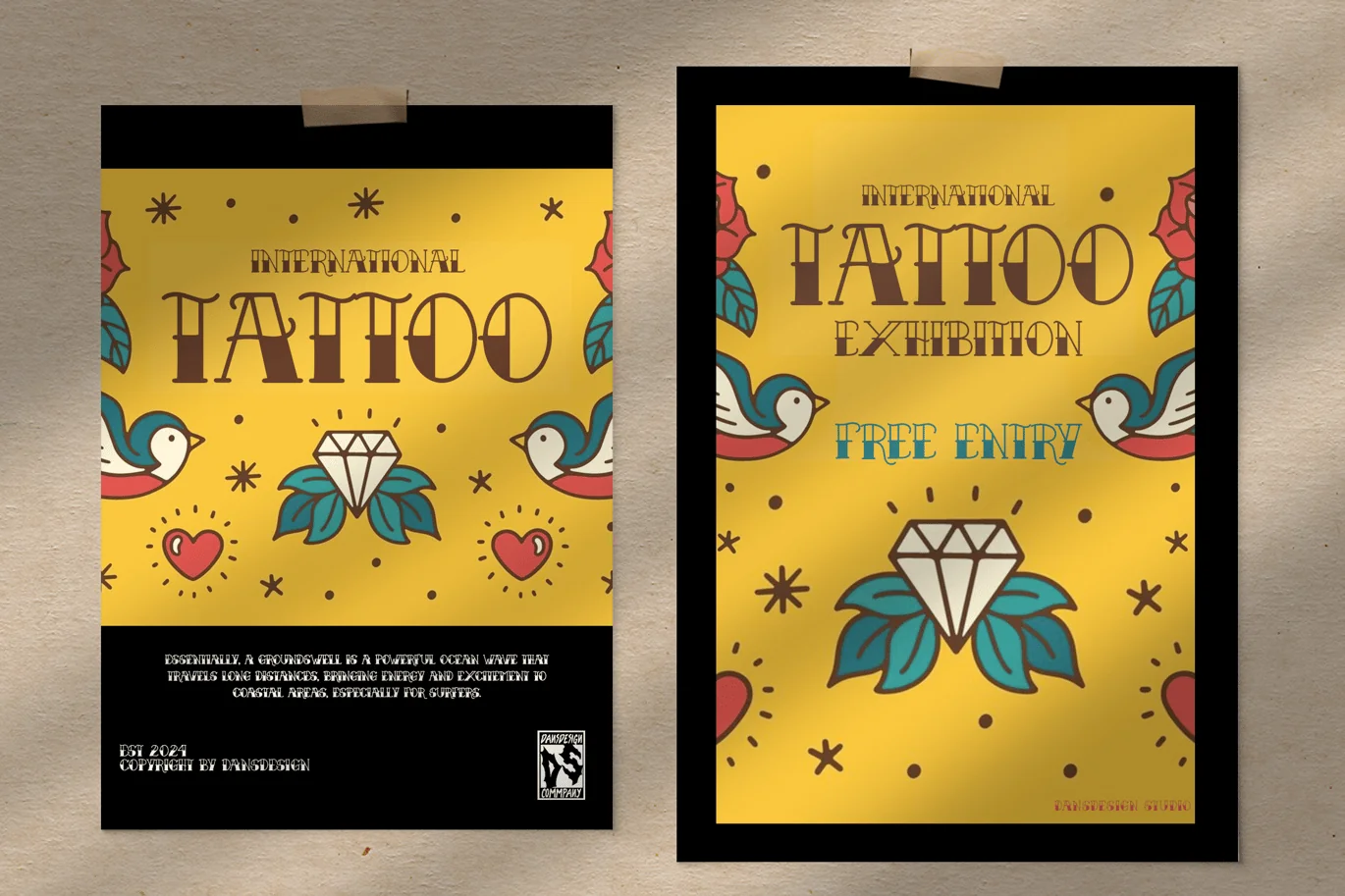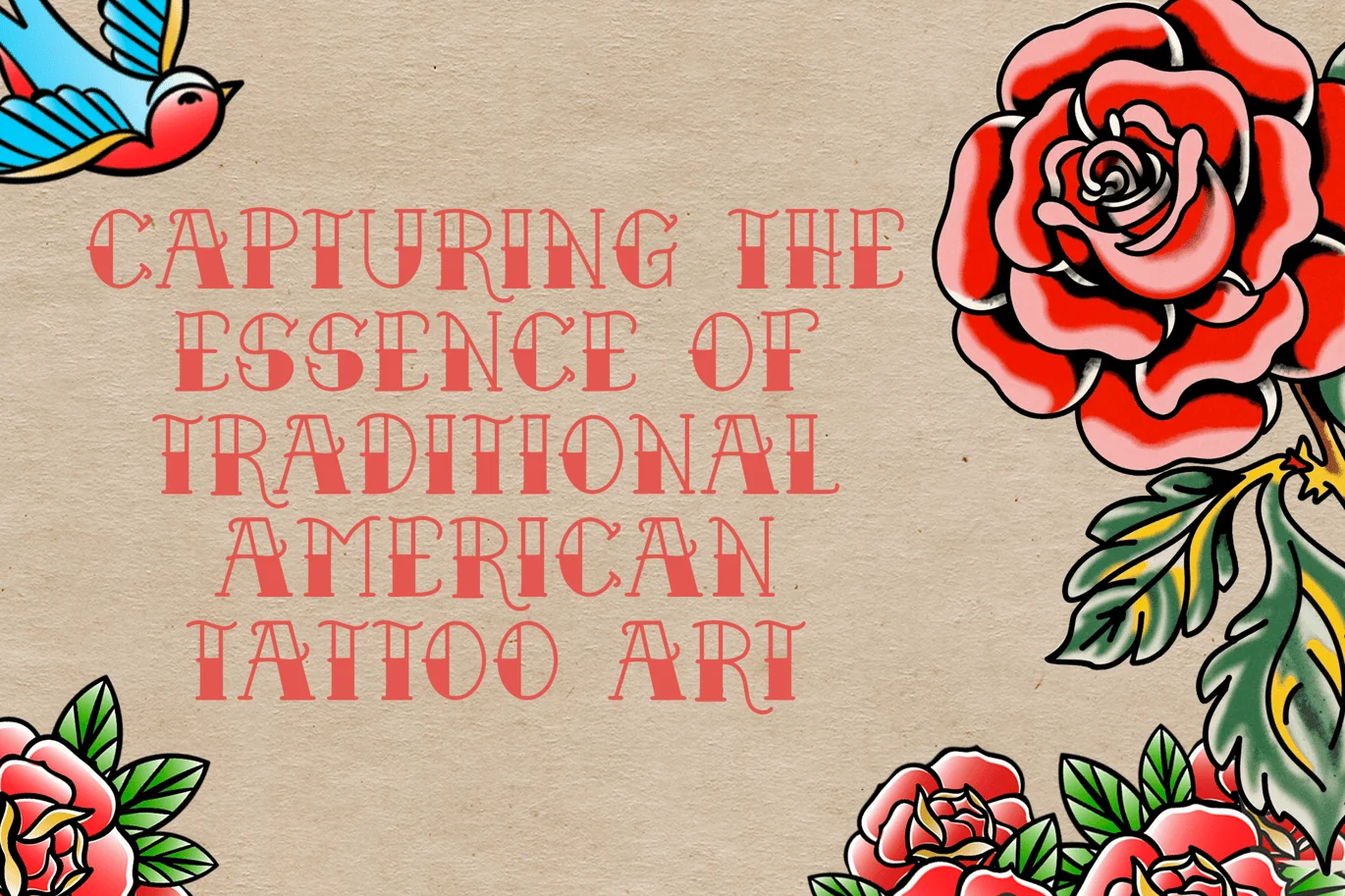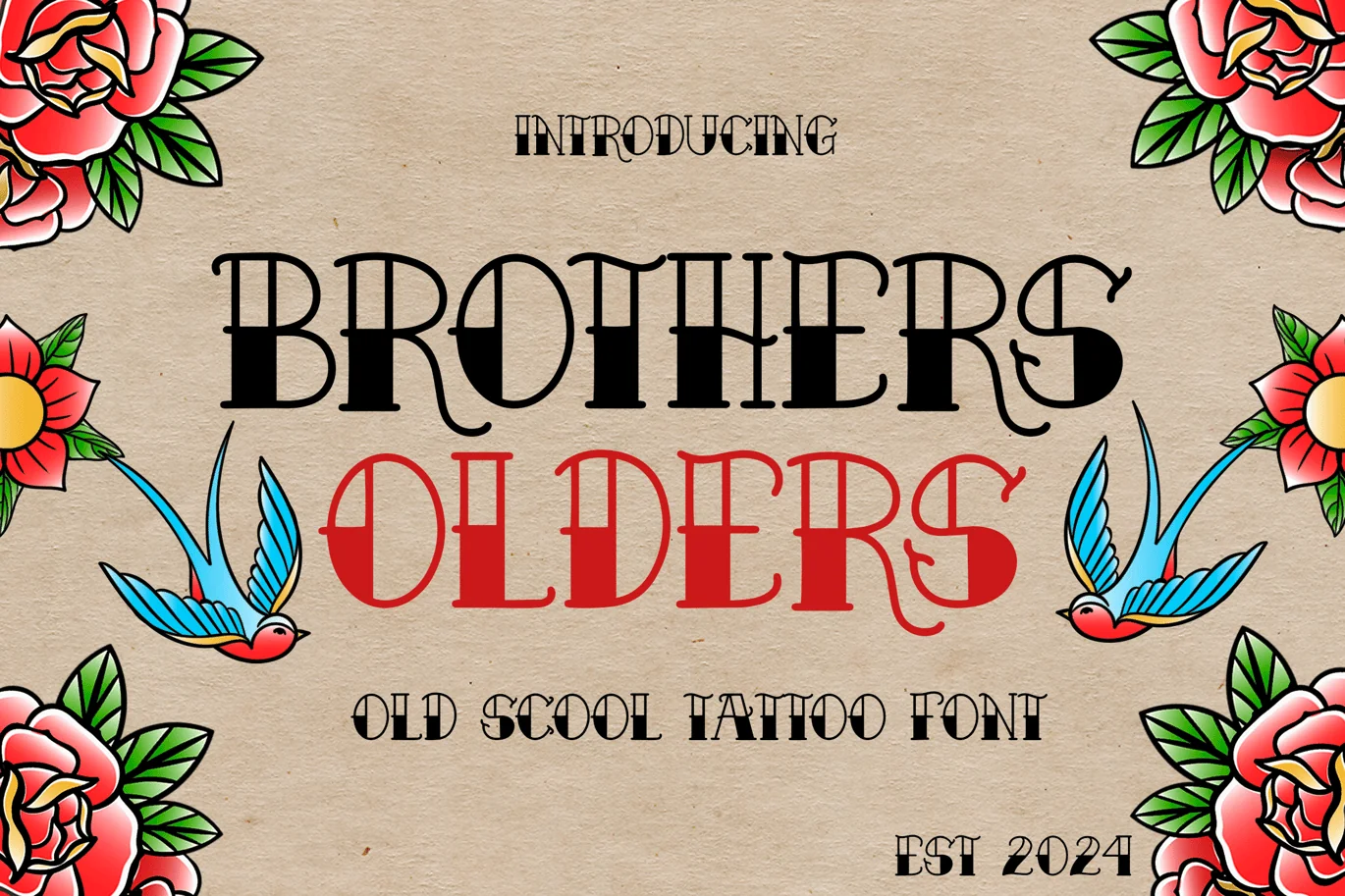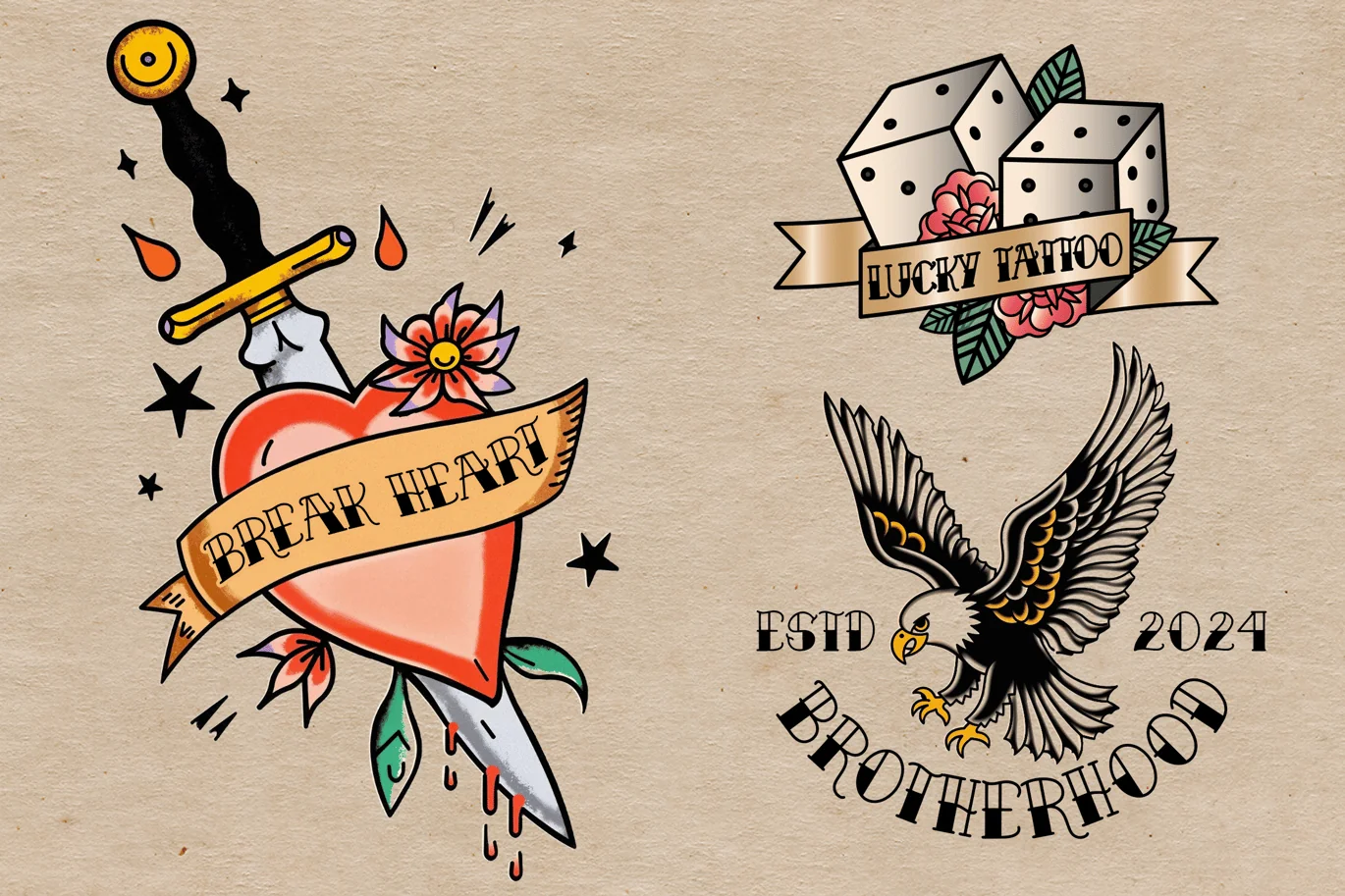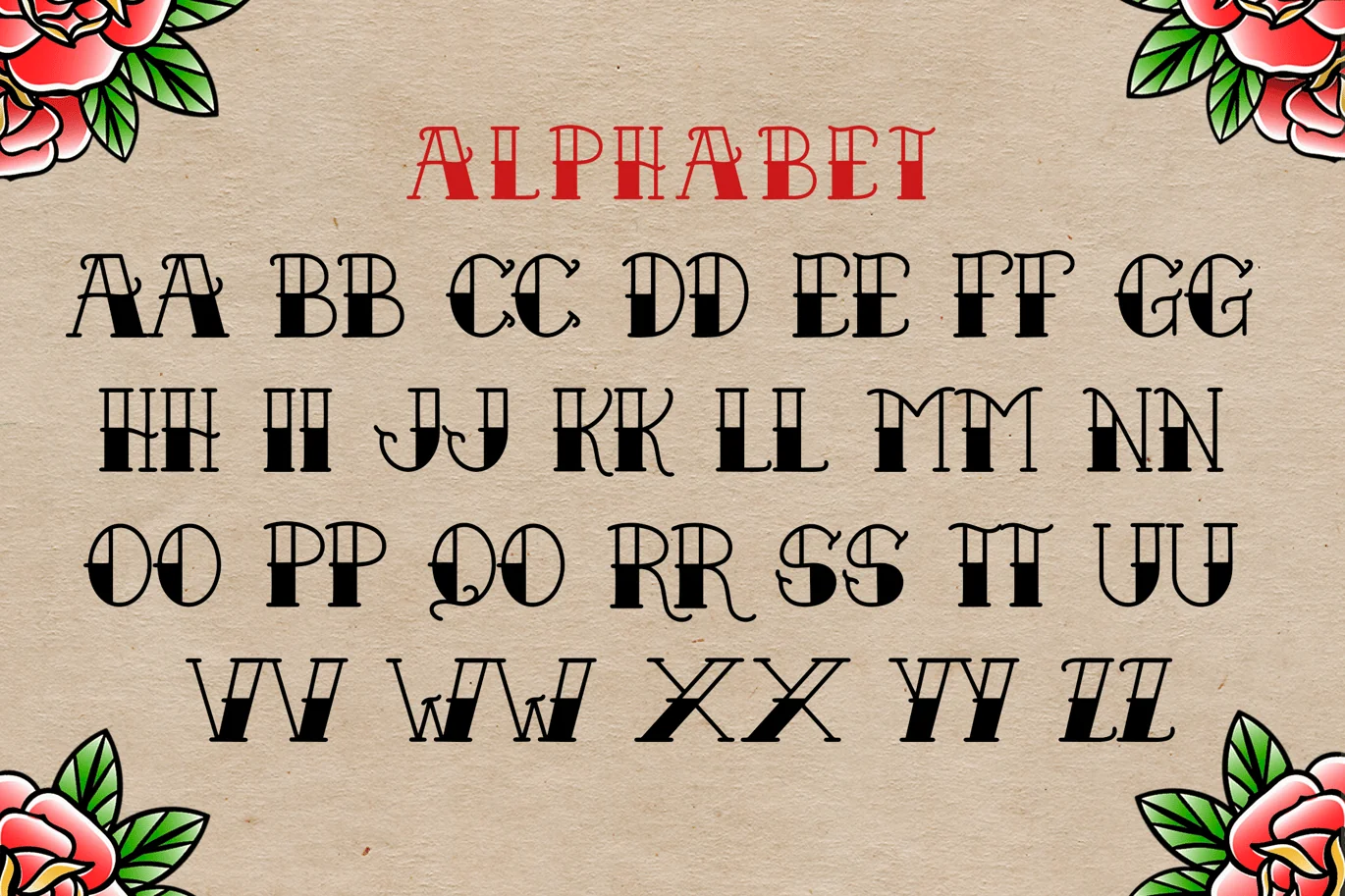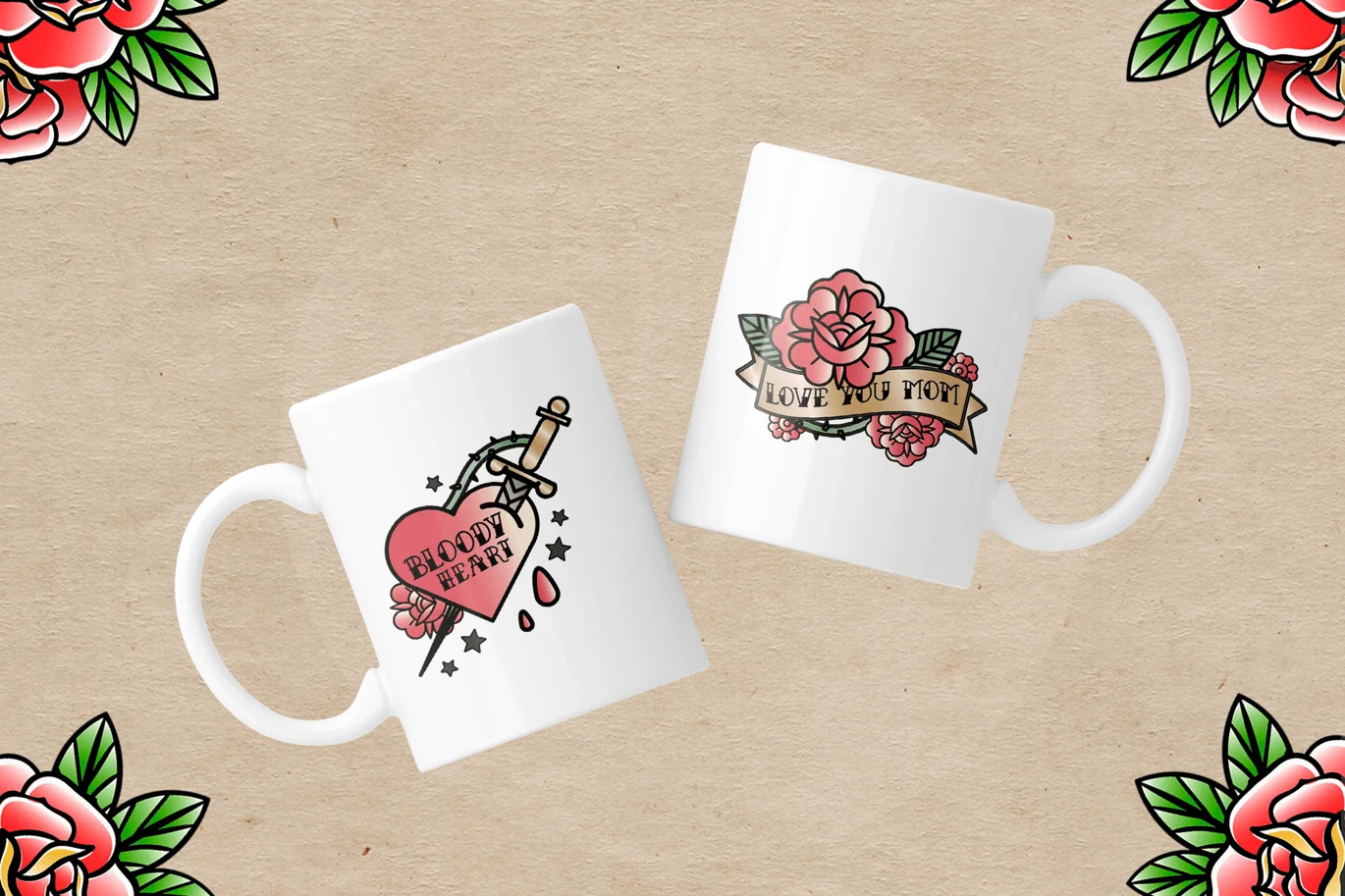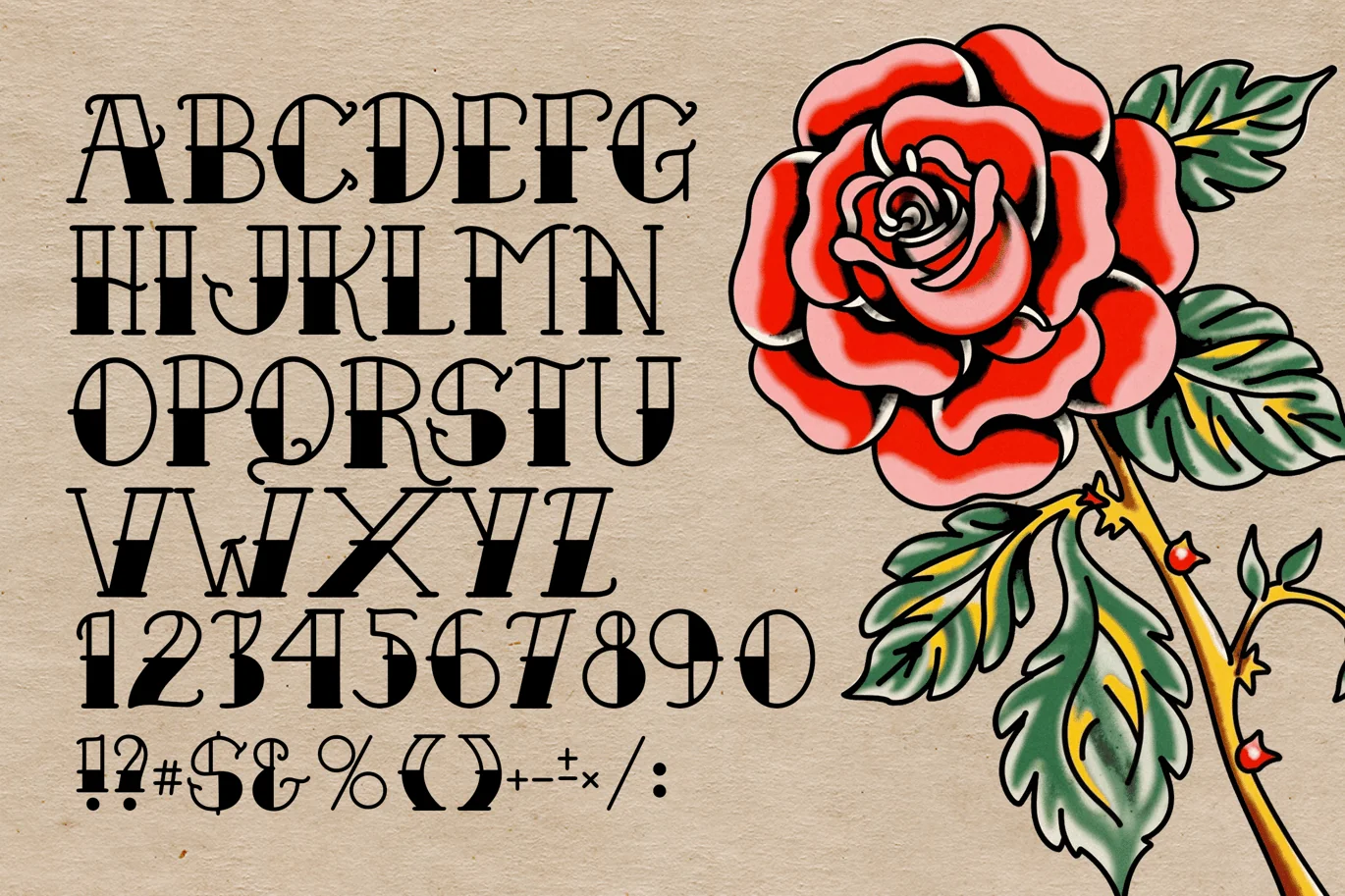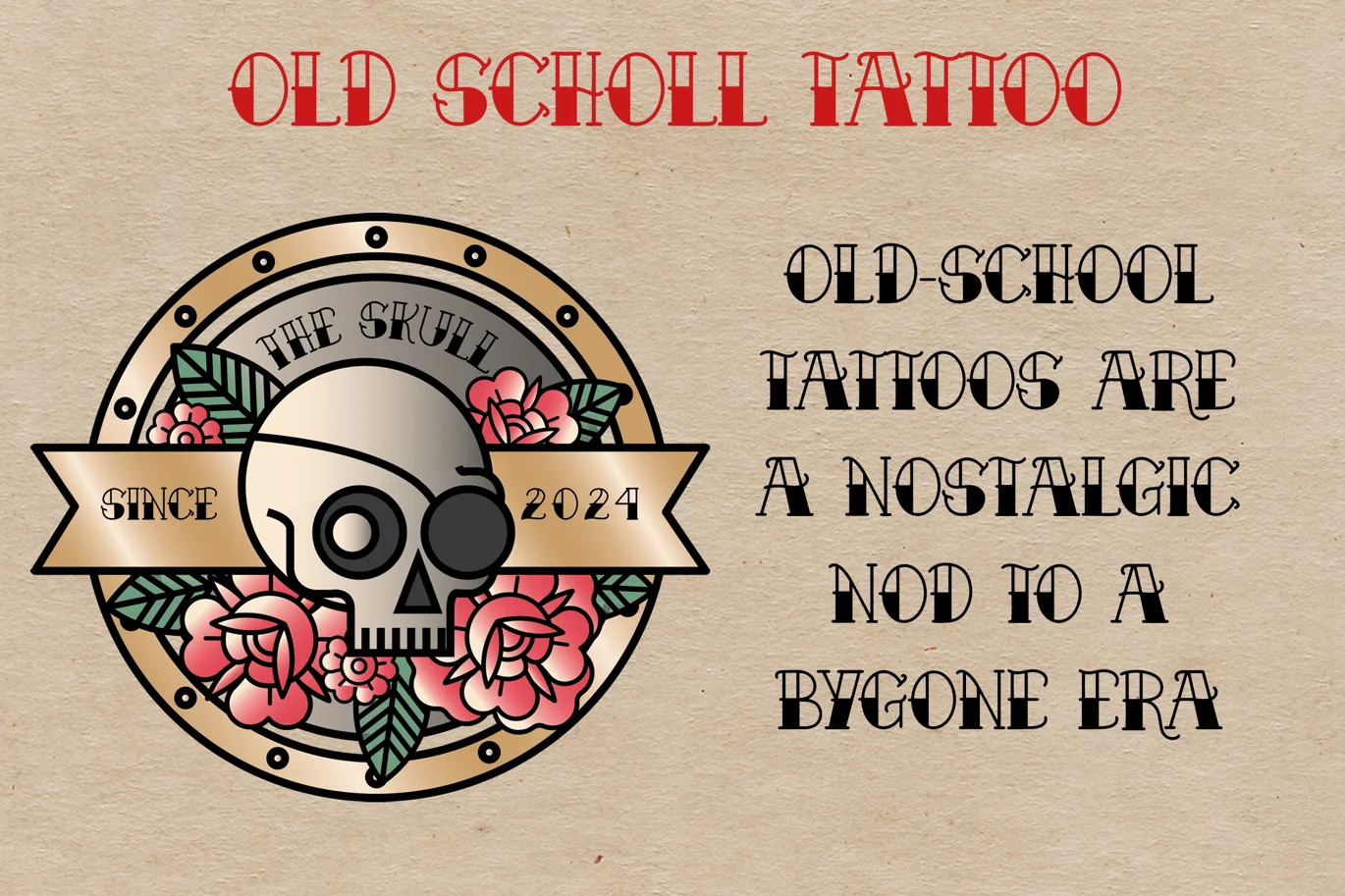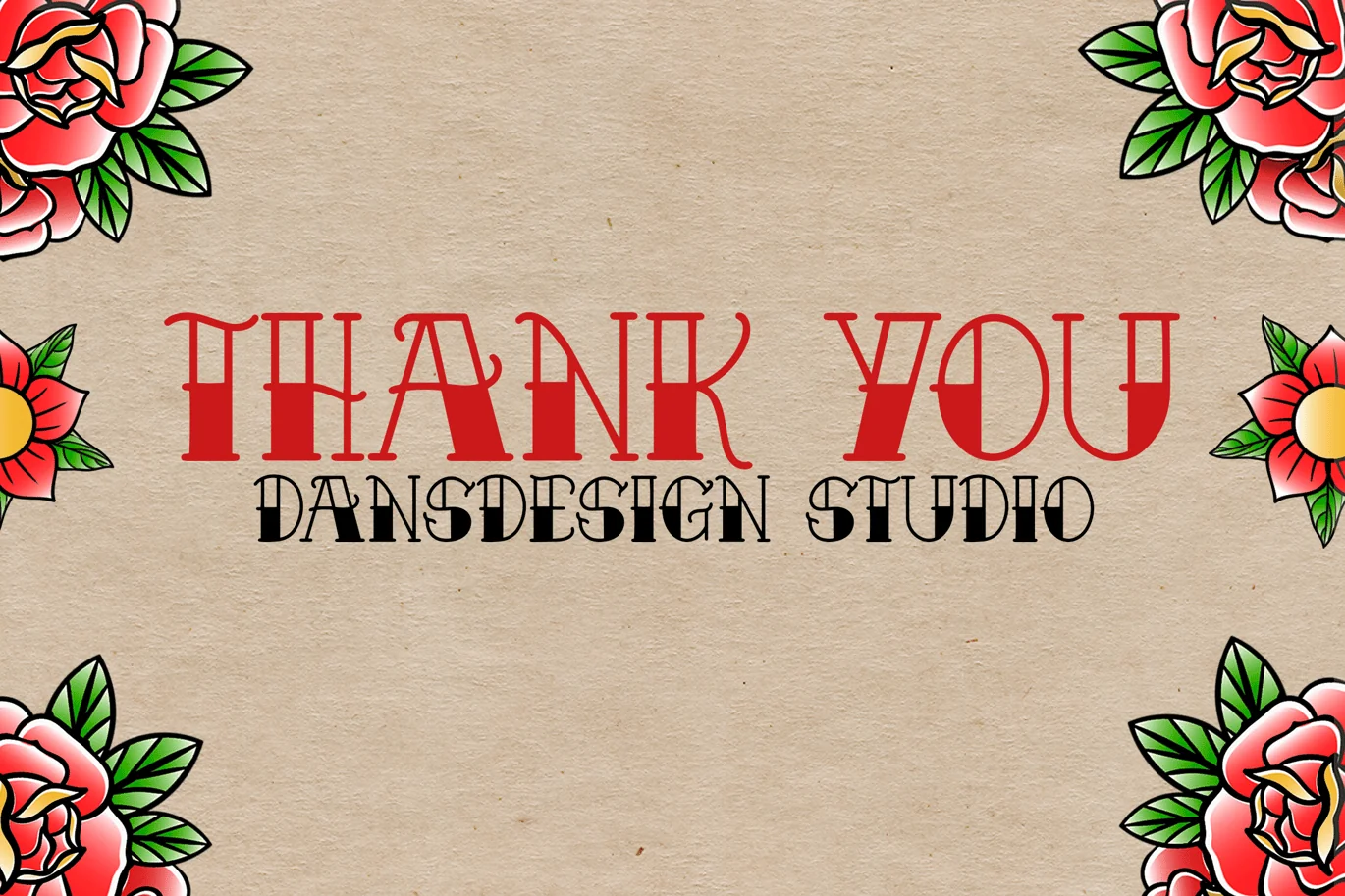
Brothers Olders Vintage Tattoo Display Font
Brothers Olders Vintage Tattoo Display Font The font is suitable and usefull for product logo, poster title, headline, packaging, badge, packaging logo, clothing brand logo, Vintage design and much more.